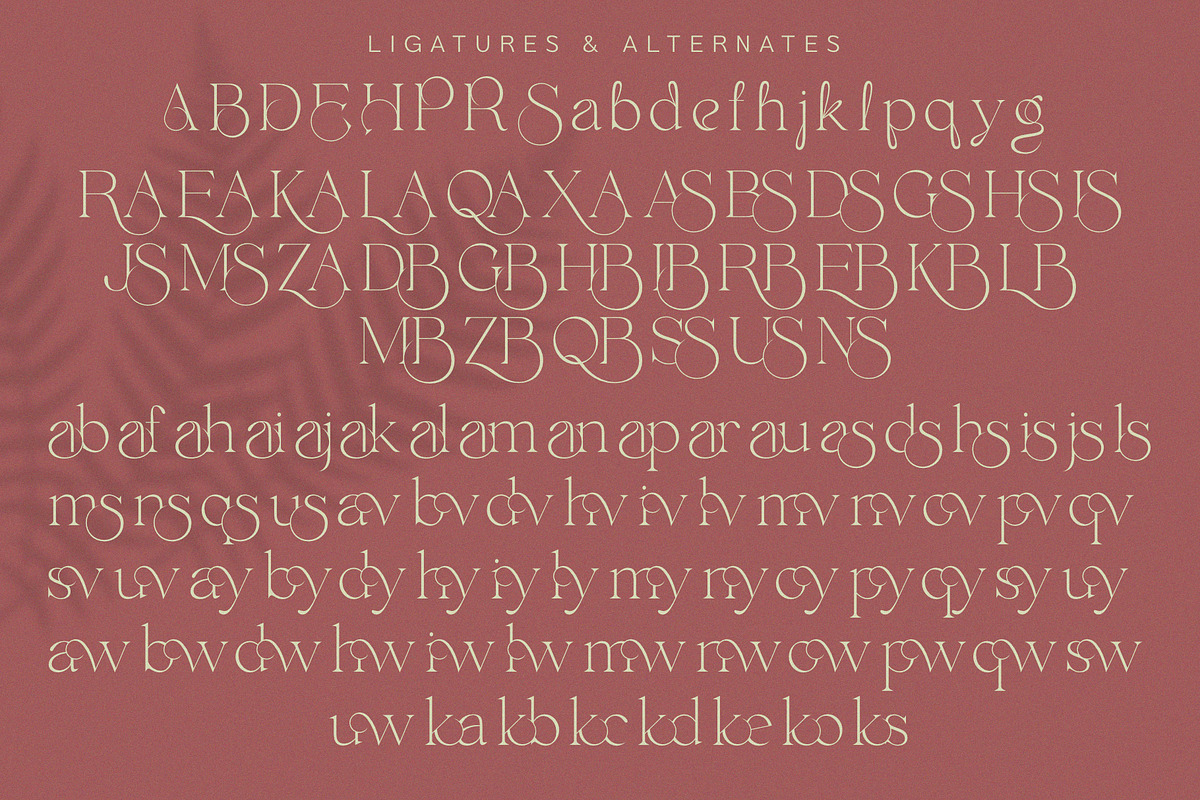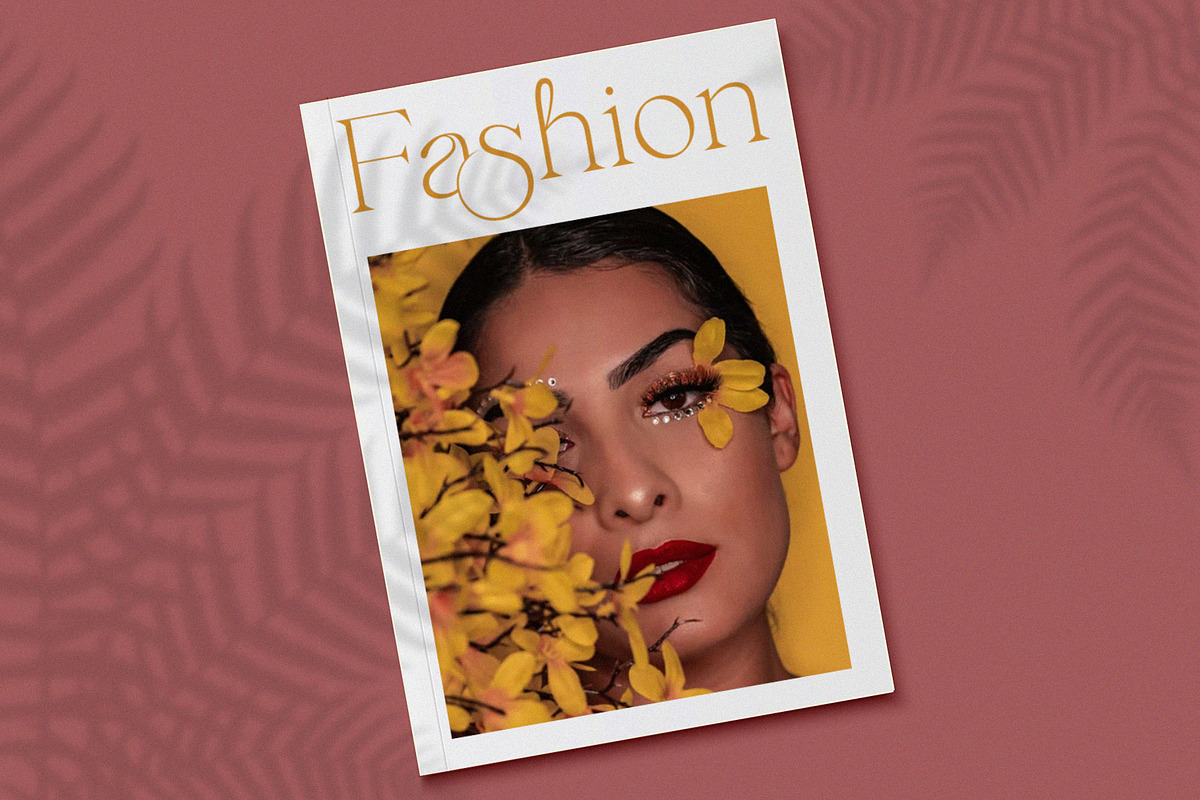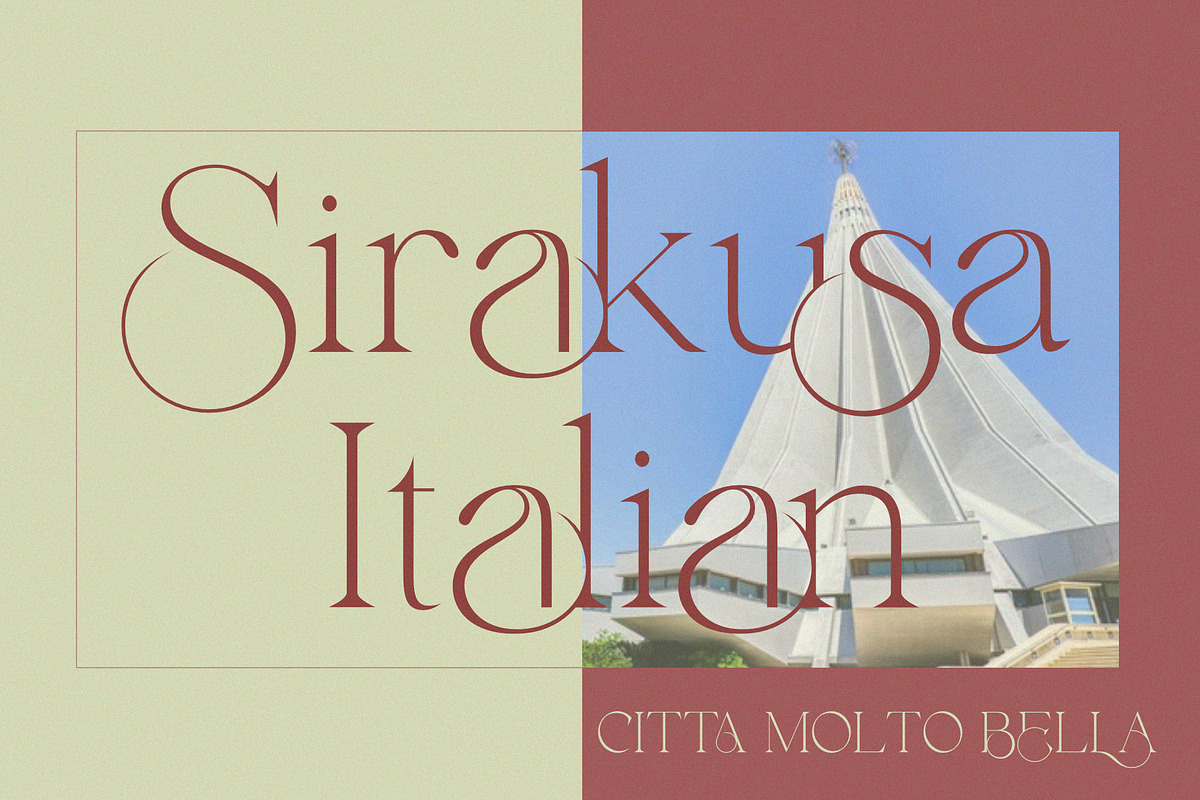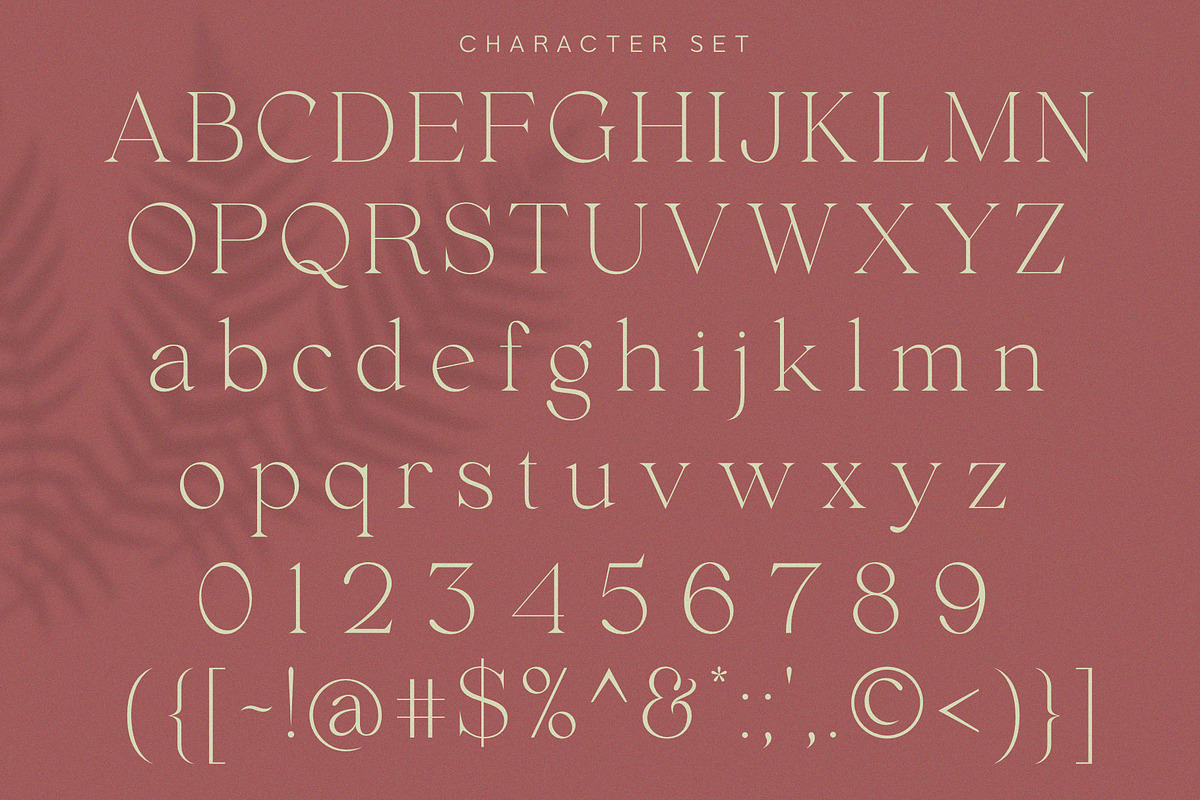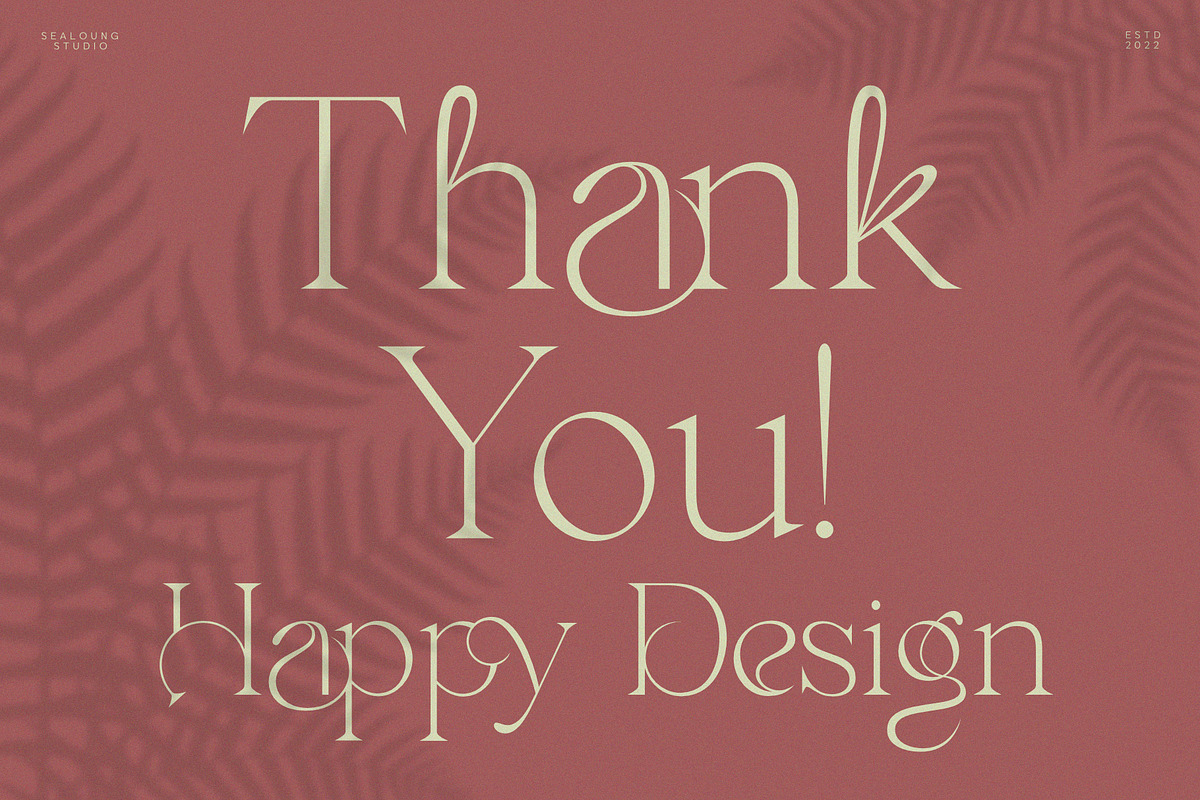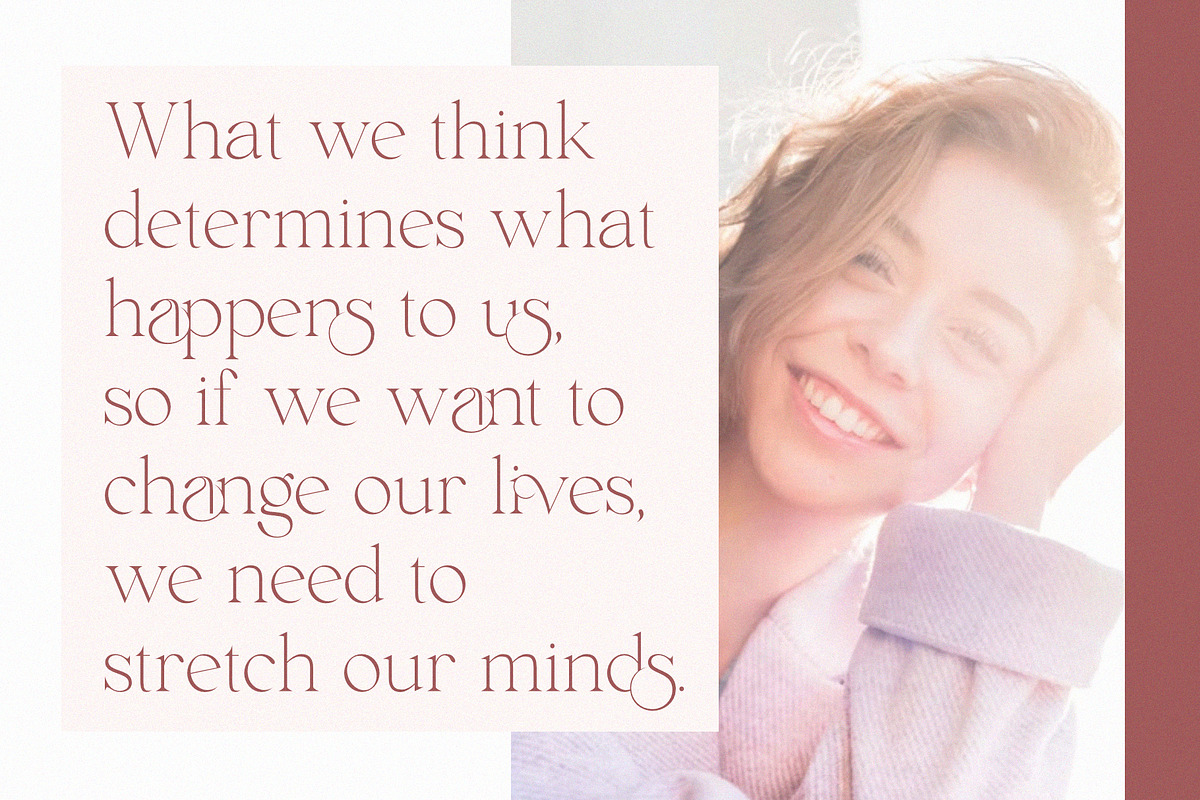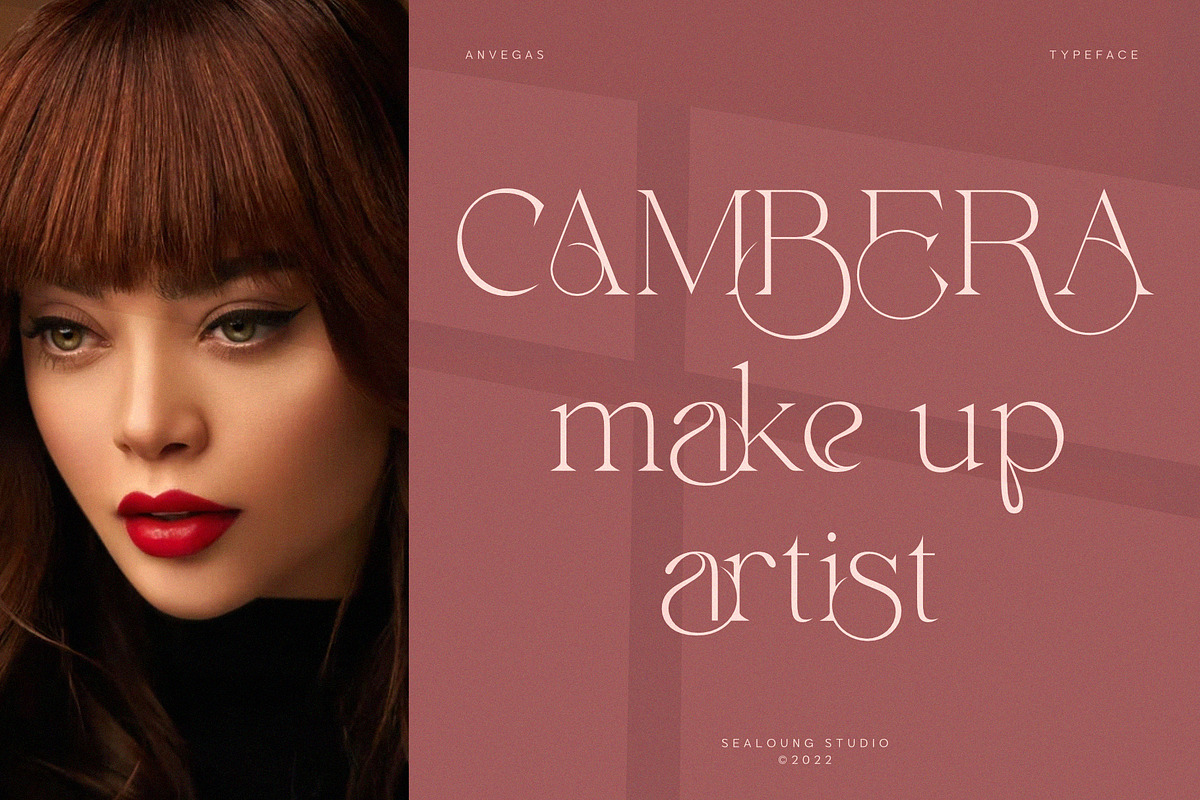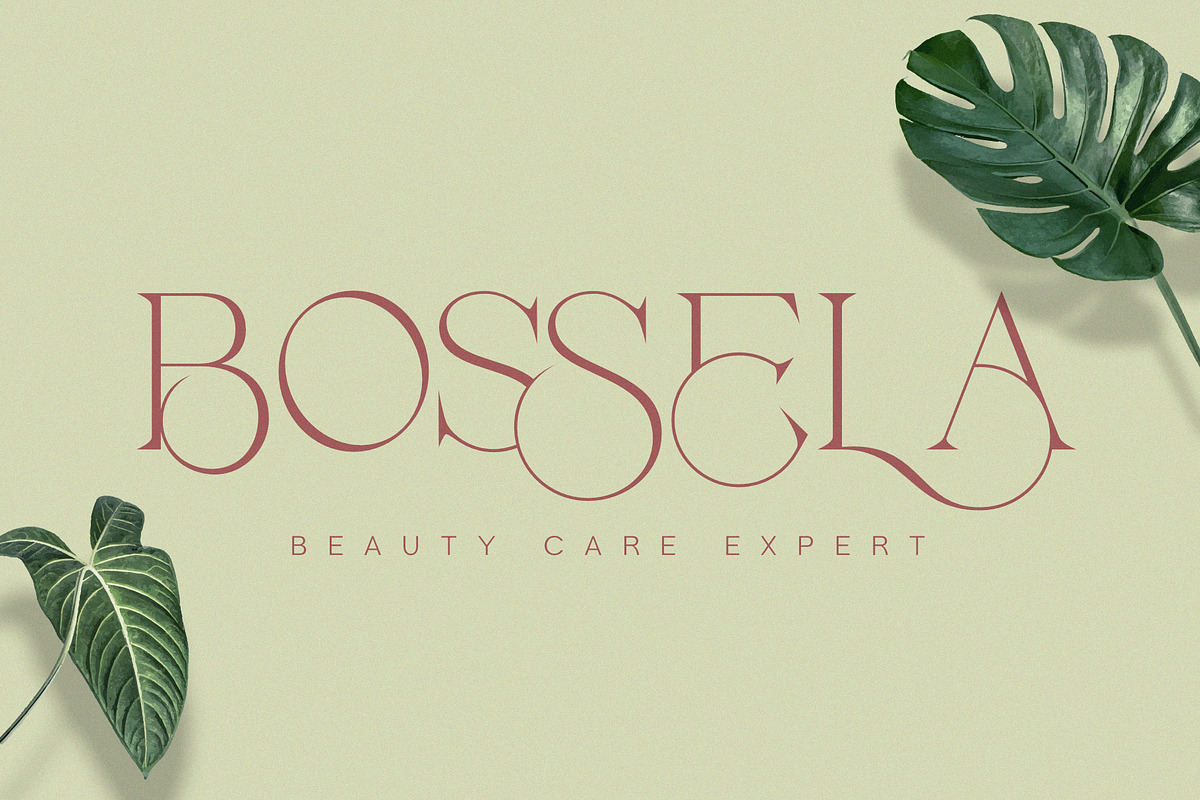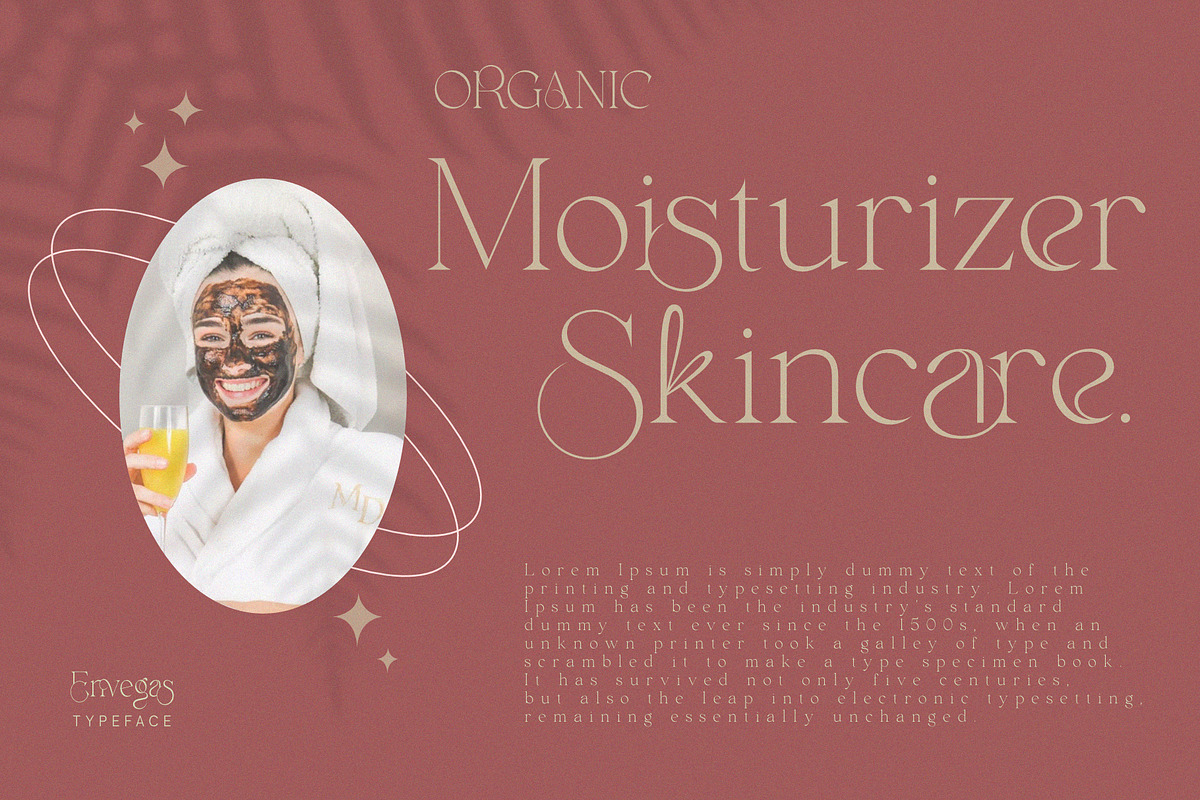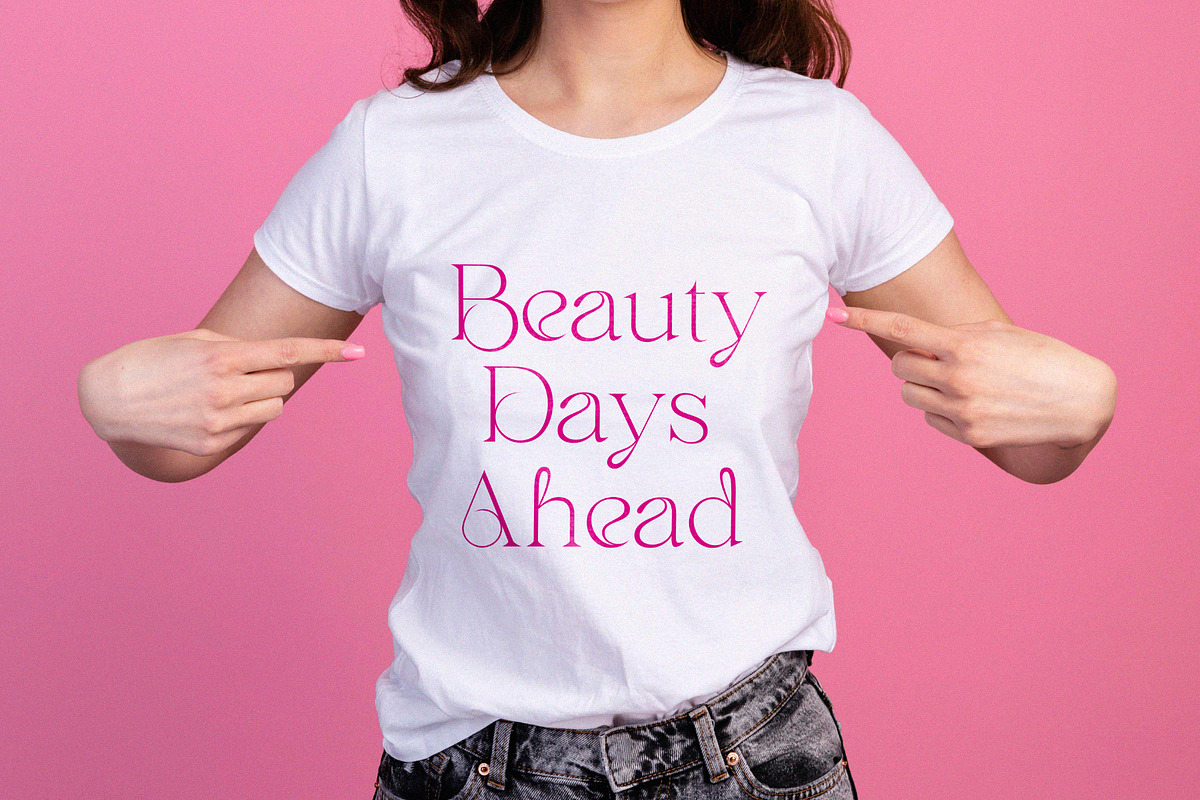
Envegas
Envegas is a Modern Ligature Serif Font. Its soft curves mixed with high contrast glyphs, give it a feminine and masculine quality. A blend of modern and old styles and equipped with unique ligatures, discretionary ligatures, and alternates. Great in layout design for quotes or body copy, best used as a display for headings, logos, branding, magazines, product packaging, and invitations.